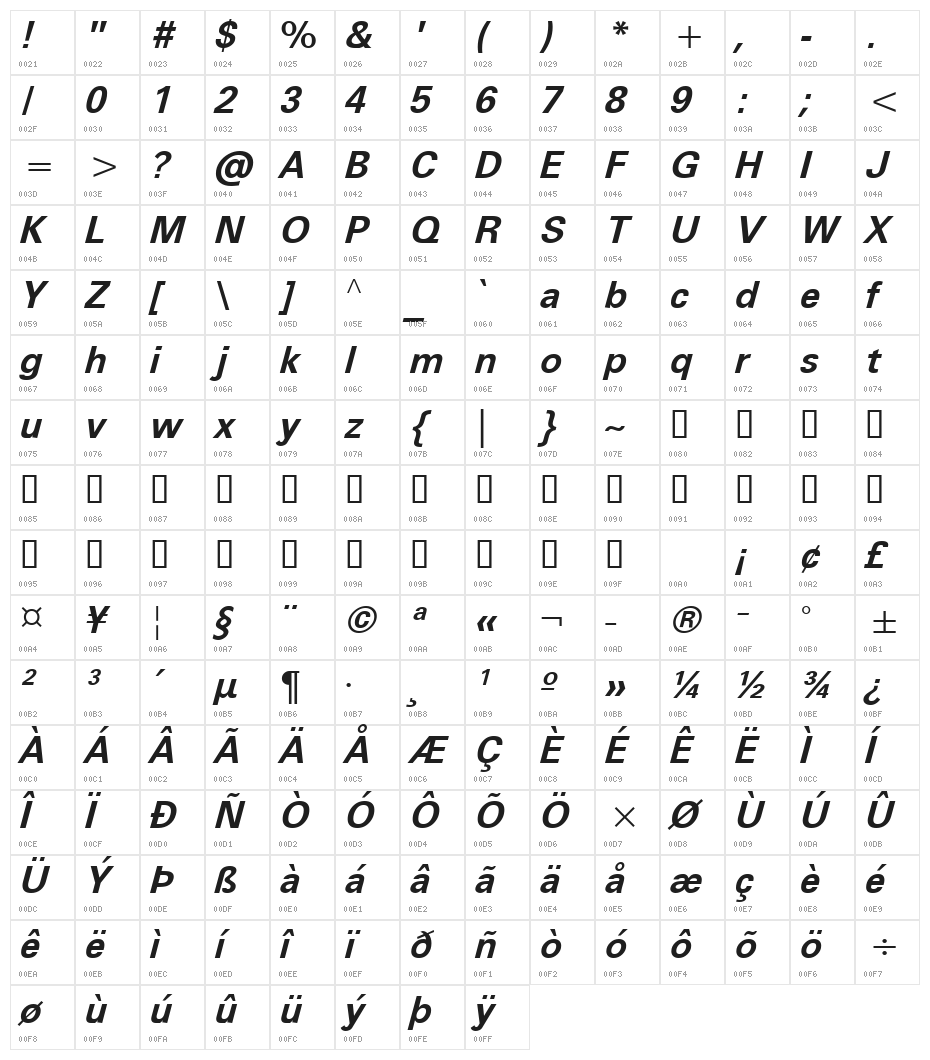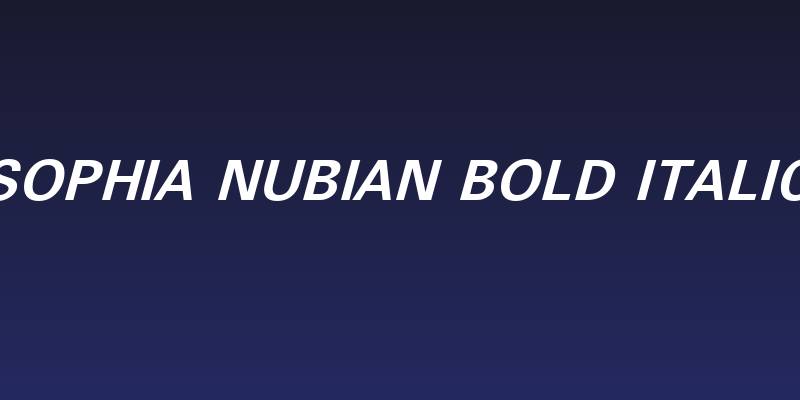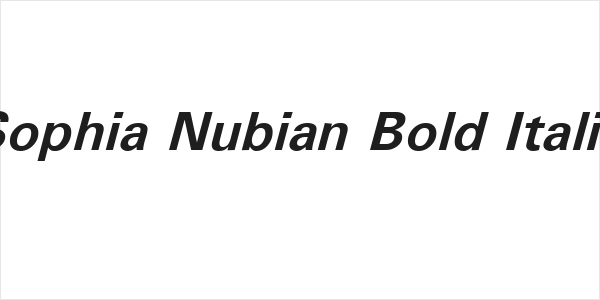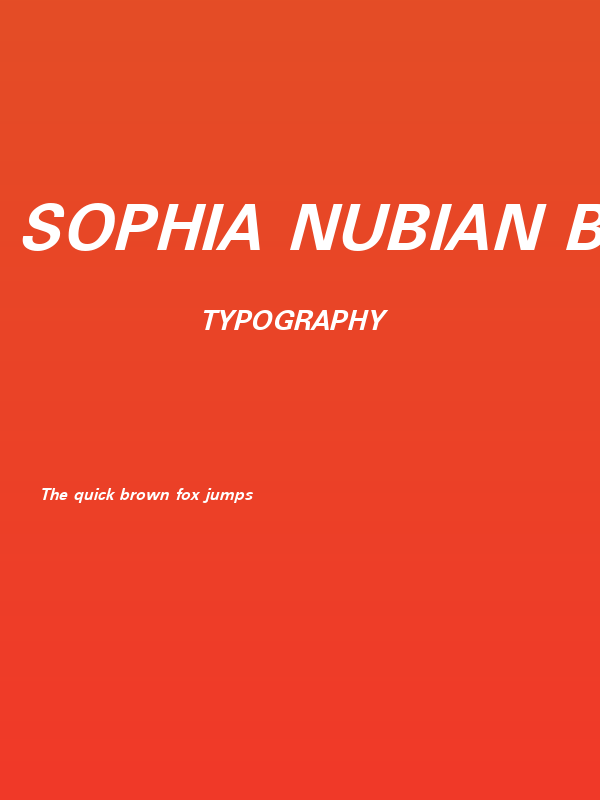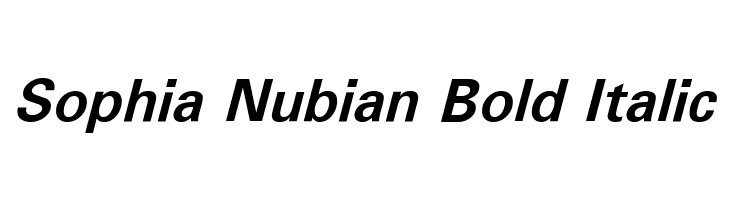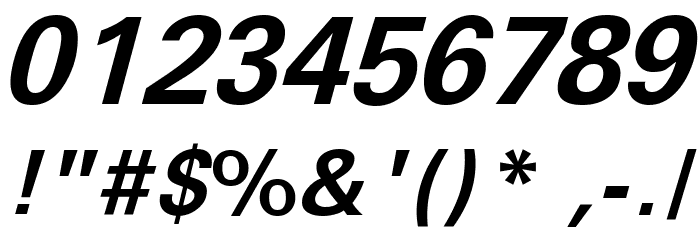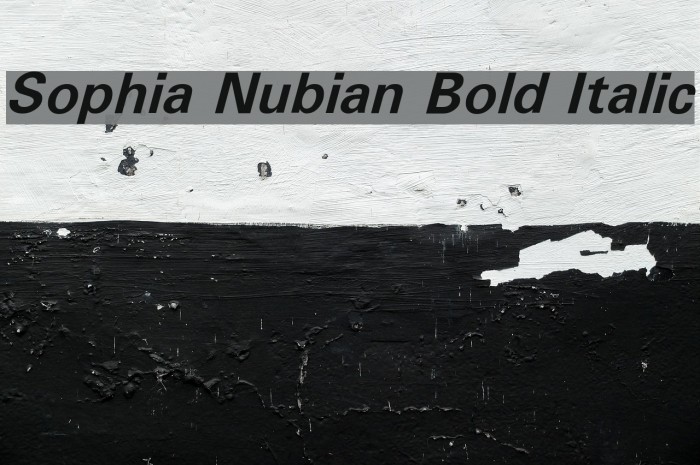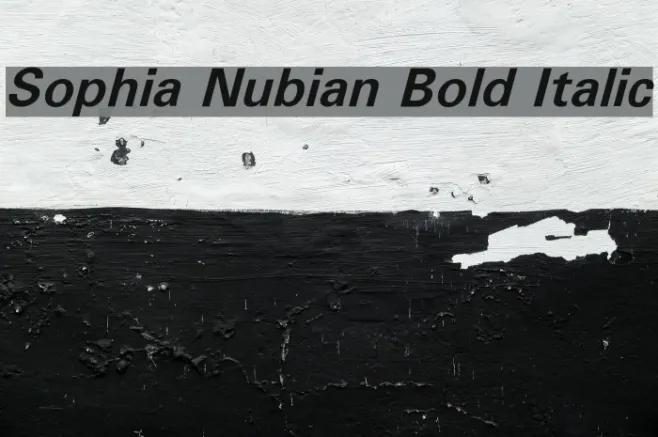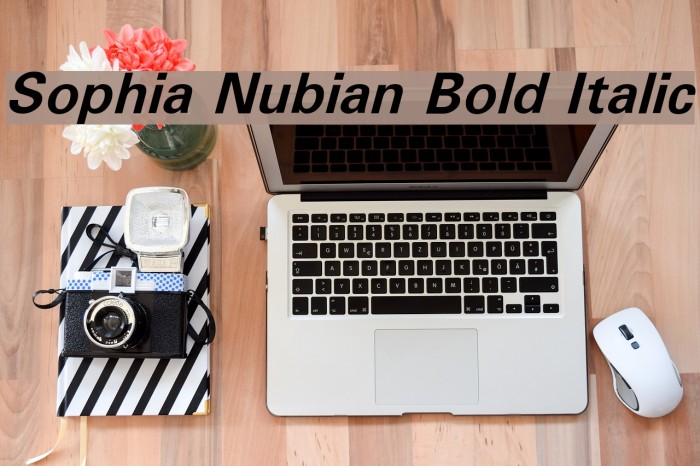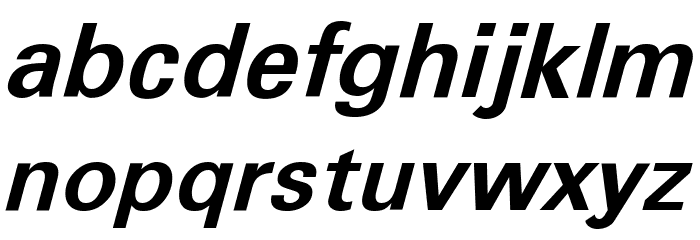
Sophia Nubian Bold Italic Font
Sophia Nubian Bold Italic Description
This font features a bold and italicized style, offering a strong and dynamic presence. The characters are slightly slanted, adding a sense of movement and urgency. The strokes are thick, providing a robust and confident appearance. The font maintains a clean and modern aesthetic, making it suitable for various design applications. The uppercase and lowercase letters are well-proportioned, ensuring readability. Numbers and special characters are consistent with the overall style, enhancing its versatility.
| Use Case | Headlines, Logos, Advertising |
| Proposed Projects | Ideal for branding, advertising, headlines, and modern web design projects. |